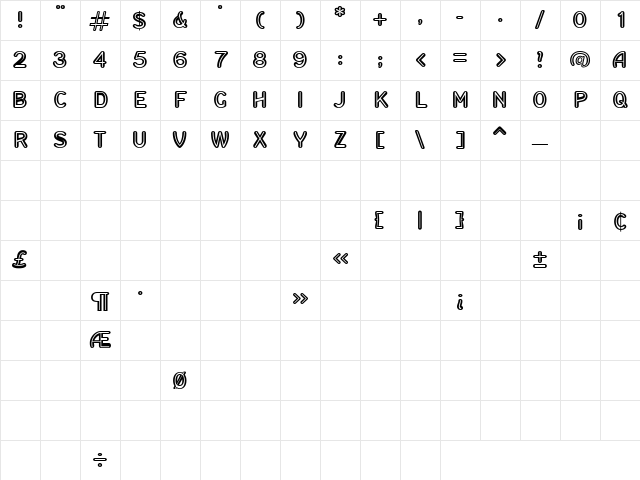
RoundSans Regular Free Font
RoundSans Regular
Foundry: Round Sans Inline - Panache Graphics, Ltd
Design Context for RoundSans
RoundSans softens its letterforms with rounded terminals, giving it an approachable, friendly quality that works well in consumer-facing and digital contexts.
Font Pairing: Pairs well with a rounded or humanist sans for body copy, maintaining the friendly tone without relying on RoundSans to carry extended reading.
Pro Tip: Use RoundSans for UI elements, app interfaces, and anywhere a friendly, approachable tone needs to be maintained without sacrificing clarity.
Who designed the RoundSans Regular font?